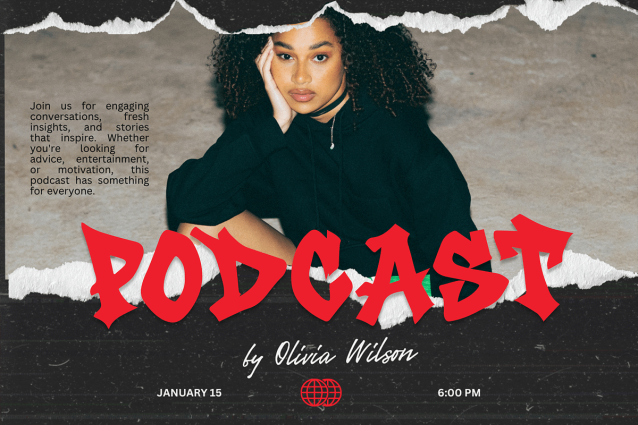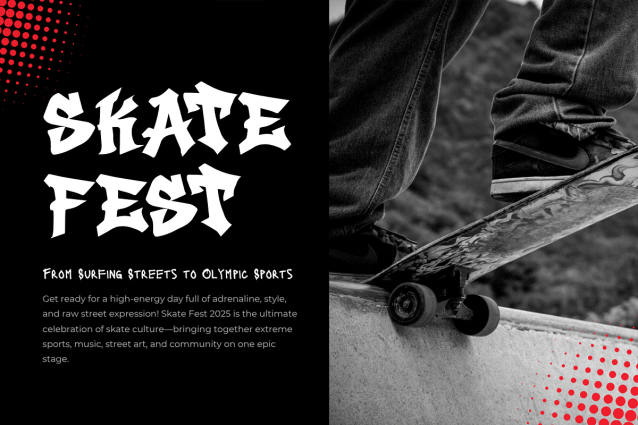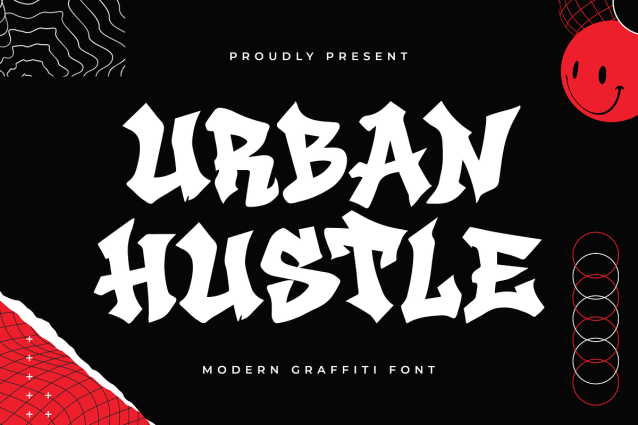
Urban Hustle Font
Urban Hustle Font is a modern graffiti font that embodies the heartbeat of the streets—bold, expressive, and full of energy. Crafted with dynamic strokes and raw personality, this typeface channels the spirit of graffiti culture and urban artistry into every character.